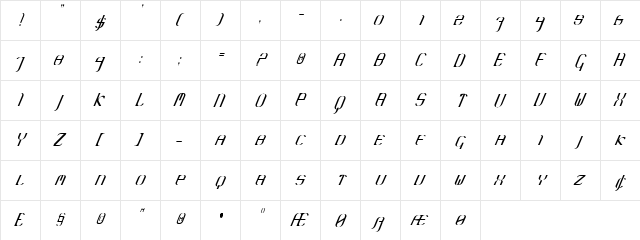
Krane Regular
Design Context for Krane Typeface
Krane offers clean, dependable letterforms without strong stylistic allegiance, making it a practical choice for designers who need flexibility.